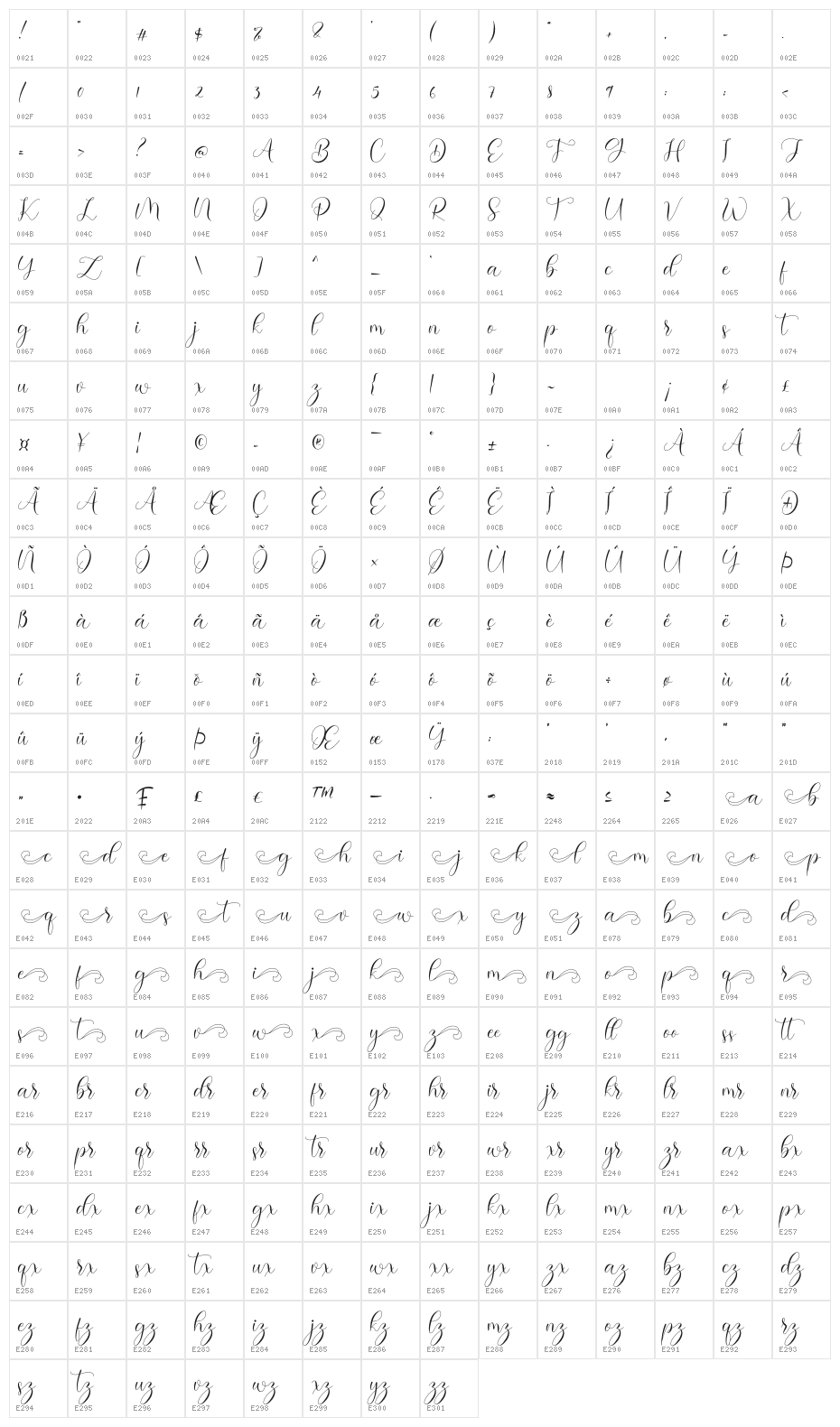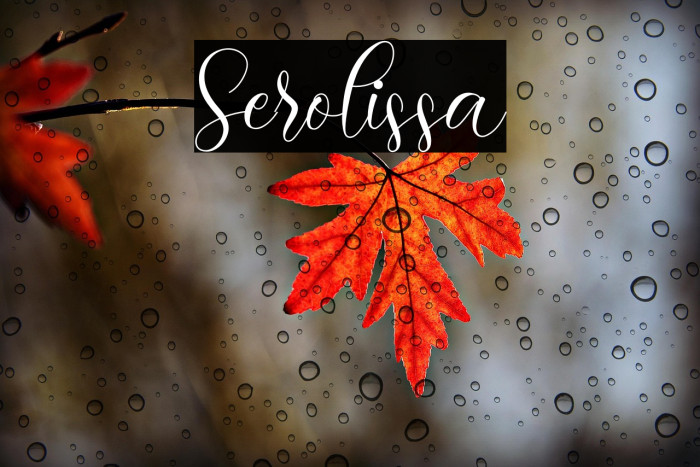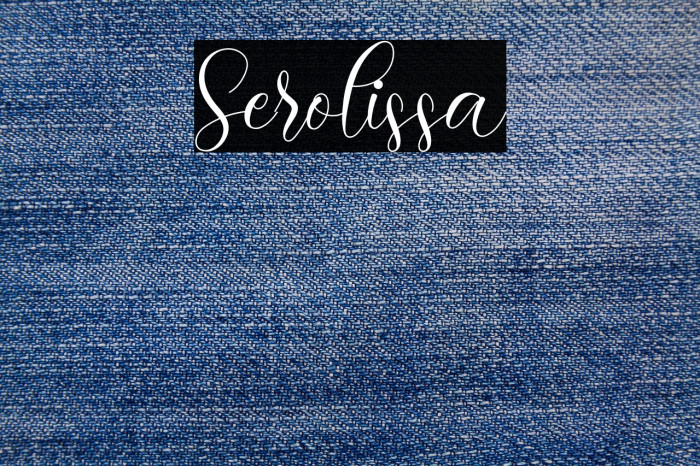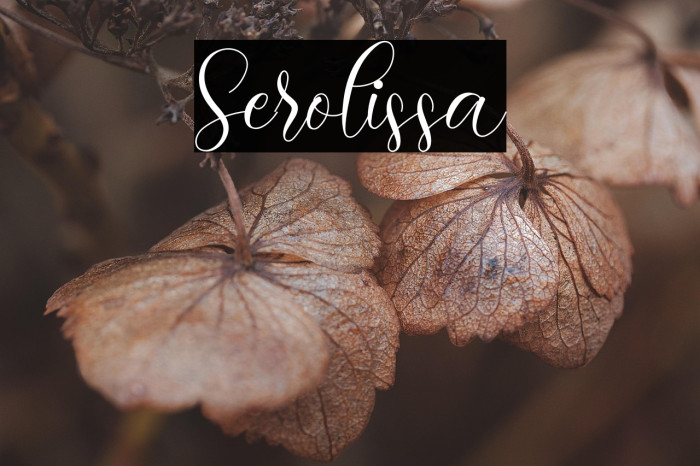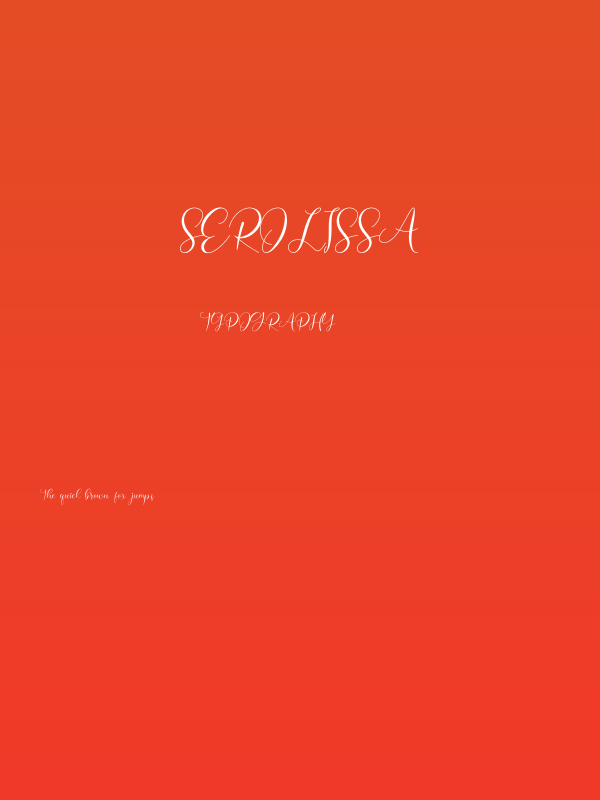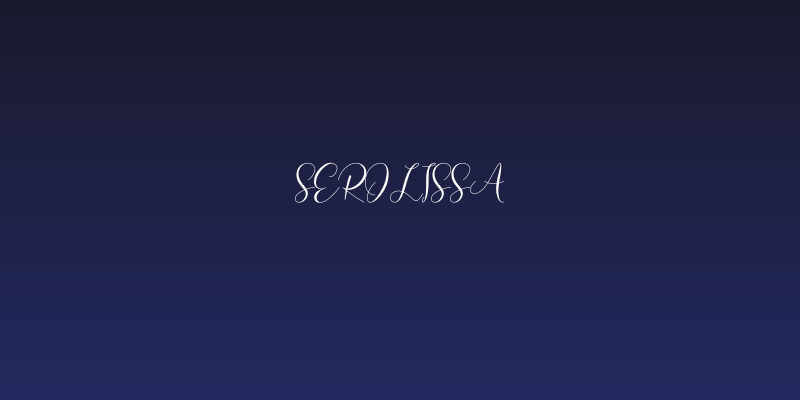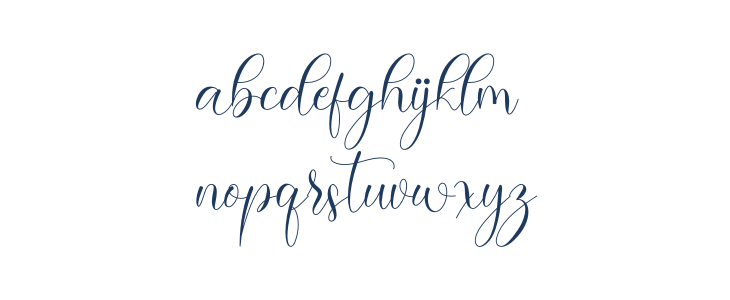
Serolissa Font
Serolissa Description
This elegant script font features flowing, interconnected letters with a sophisticated and artistic flair. The uppercase characters exhibit graceful loops and swashes, adding a touch of luxury and refinement. The lowercase letters maintain a consistent style, with smooth curves and delicate strokes that enhance readability while preserving the font's decorative nature. Numbers and special characters are designed to complement the overall aesthetic, ensuring a cohesive look across various applications. This font is ideal for projects that require a touch of elegance and creativity.
An elegant script font with flowing, interconnected letters and artistic flair from Uncategorized fonts.
- Proposed Projects: Wedding invitations, branding, luxury product packaging, greeting cards, and elegant event signage.
- Overall Style: Elegant, Artistic
- Use Case: Logos, Invitations, Decorative text